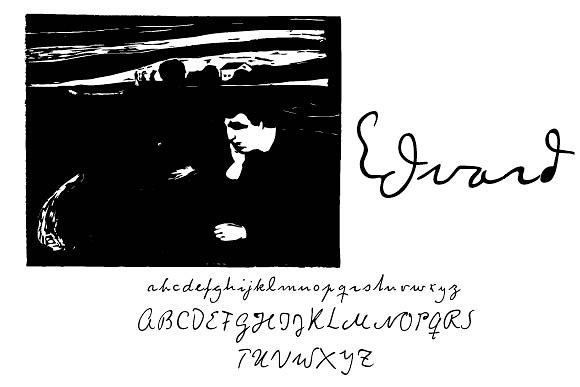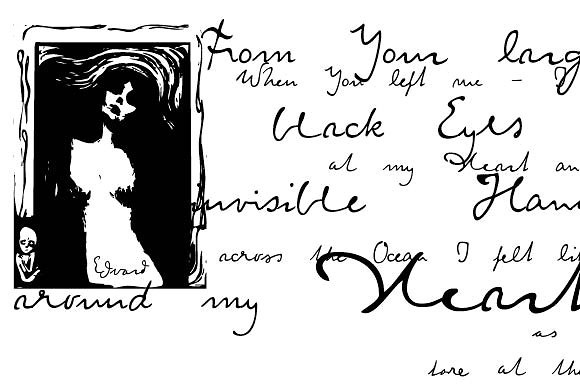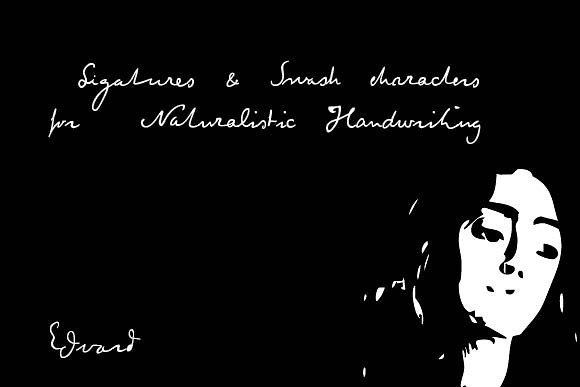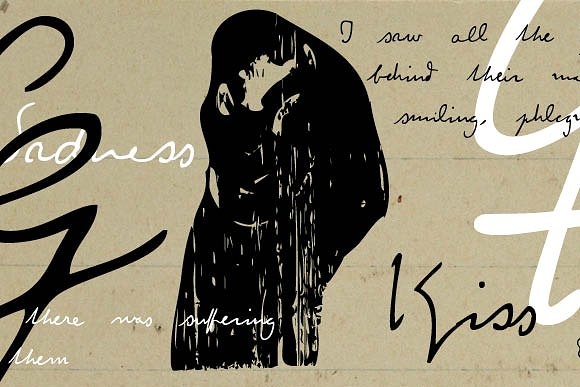
Discover the Edvard Font: A Unique Typeface Inspired by the Handwriting of Edvard Munch
For designers and crafters, finding the perfect font can be a daunting task. However, if you’re looking for a typeface that embodies elegance and irregularity, look no further than the Edvard Font. This unique font is based on the handwriting of Norwegian painter Edvard Munch, best known for his iconic work, “The Scream.” In this article, we’ll explore the Edvard Font, its features, and how it can elevate your design projects.
The Inspiration Behind Edvard Font
The Edvard Font is a meticulous recreation of Munch’s handwriting, using his letters, drafts, notes, and sketchbooks as reference. This font characterizes the elegant yet sometimes quite irregular writing style that Munch was known for. The result is a typeface that exudes a sense of naturalism and authenticity, making it perfect for designers and crafters looking to add a touch of uniqueness to their work.
Key Features of Edvard Font
One of the standout features of the Edvard Font is its extensive collection of ligatures and alternates. To resemble naturalistic writing and remain as authentic as possible, the font includes a combination of extended ligatures and alternates. This allows for a more fluid and organic feel, making it ideal for use in a variety of design projects, from stationery to advertising.
Embedded Extras: A Treasure Trove of Creative Resources
But that’s not all. The Edvard Font also comes with a range of extras, including several of Munch’s paintings and woodcuts. These embedded resources provide a wealth of creative possibilities, allowing designers and crafters to incorporate Munch’s artwork into their projects. Imagine being able to add a touch of Munch’s iconic style to your designs, without having to search for separate image files.
Using Edvard Font in Your Design Projects
So, how can you use the Edvard Font in your design projects? The possibilities are endless. Here are a few ideas to get you started:
- Stationery and Invitations: Add a touch of elegance to your stationery and invitations with the Edvard Font. Its unique and irregular style makes it perfect for creating bespoke wedding invitations, greeting cards, and more.
- Advertising and Marketing: Use the Edvard Font to add a touch of sophistication to your advertising and marketing materials. Its naturalistic feel makes it ideal for use in campaigns that require a more organic and earthy tone.
- Packaging and Branding: The Edvard Font is also perfect for use in packaging and branding projects. Its unique style makes it an excellent choice for companies looking to stand out in a crowded market.
Tips for Working with Edvard Font
To get the most out of the Edvard Font, here are a few tips to keep in mind:
- Experiment with Ligatures and Alternates: Don’t be afraid to experiment with the font’s ligatures and alternates. These features can add a level of depth and complexity to your designs.
- Pair with Other Fonts: The Edvard Font pairs well with other fonts, particularly those with a more geometric or serif style. Experiment with different pairings to find the perfect combination for your project.
- Use Embedded Extras: Take advantage of the embedded extras, such as Munch’s paintings and woodcuts. These resources can add a unique touch to your designs and help you create something truly special.
The Edvard Font is a unique and elegant typeface that is sure to inspire designers and crafters. With its naturalistic feel and extensive collection of ligatures and alternates, it’s perfect for use in a variety of design projects. Add to that the embedded extras, including Munch’s paintings and woodcuts, and you have a font that is truly one-of-a-kind. Whether you’re looking to create bespoke stationery, advertising materials, or packaging, the Edvard Font is an excellent choice.